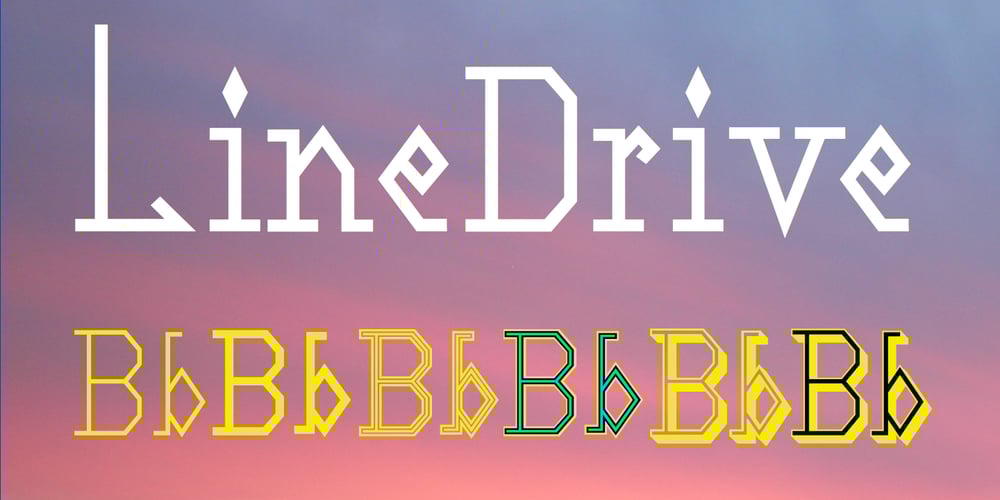
LineDrive Font Family was designed by Robert Schenk and published by Ingrimayne Type. LineDrive contains 7 styles and family package options. LineDrive was inspired by an obscure 19th century type design. It has no curved lines and what are normally circular elements in the lower-case letters are diamond-shaped. It might work best with only upper-case letters, which have a Victorian feel to them. In addition to the two weights of plain and bold, the family includes a shadowed version and an inline (or outlined) version.